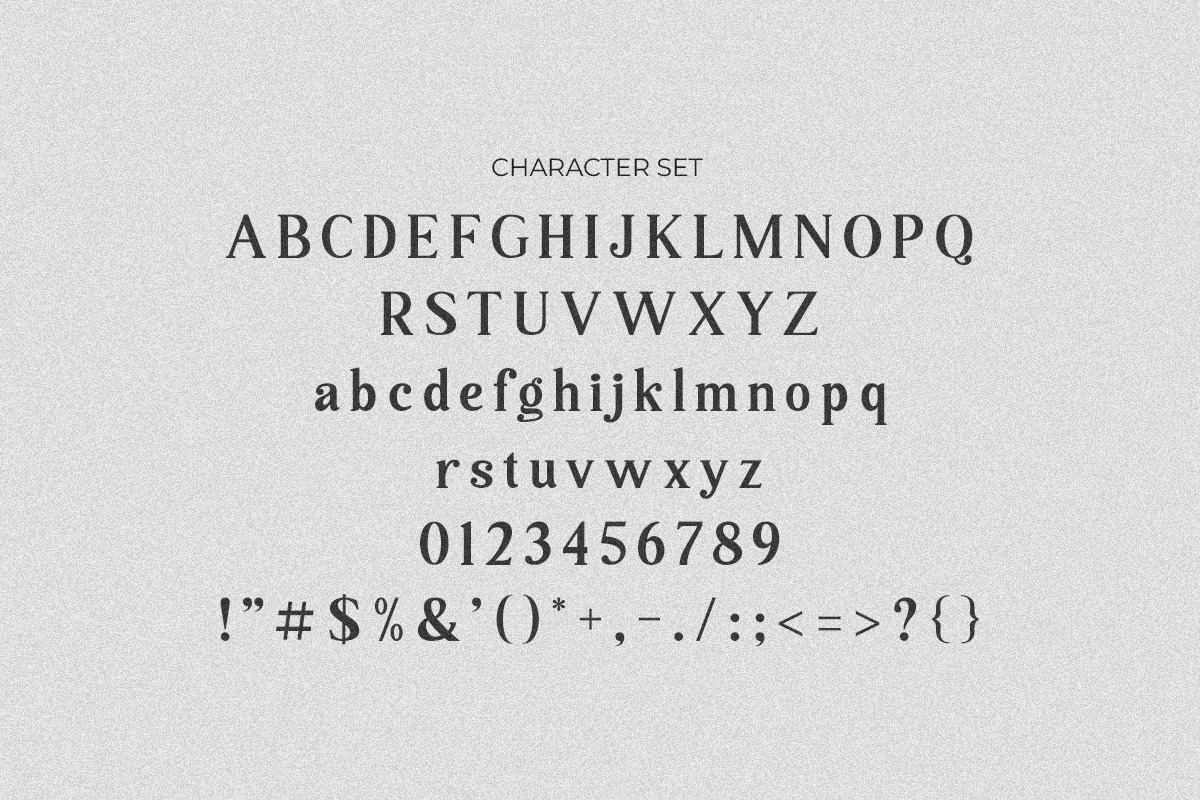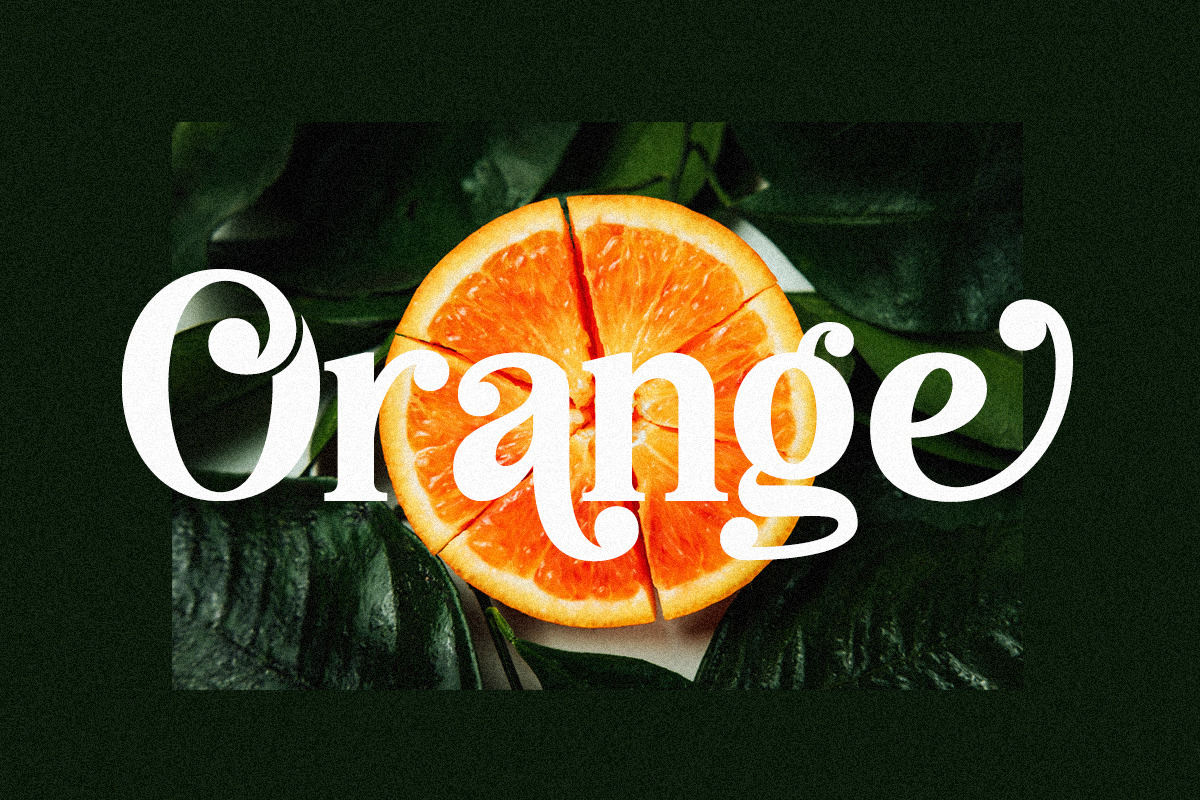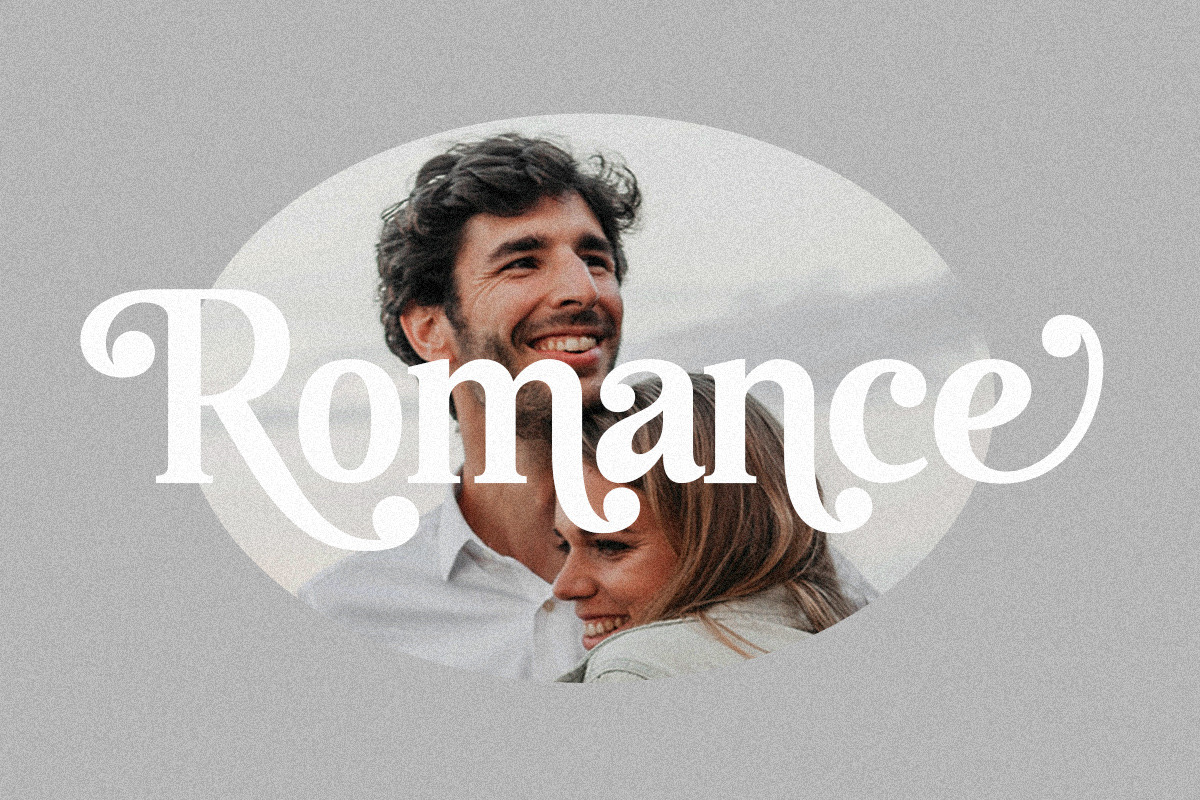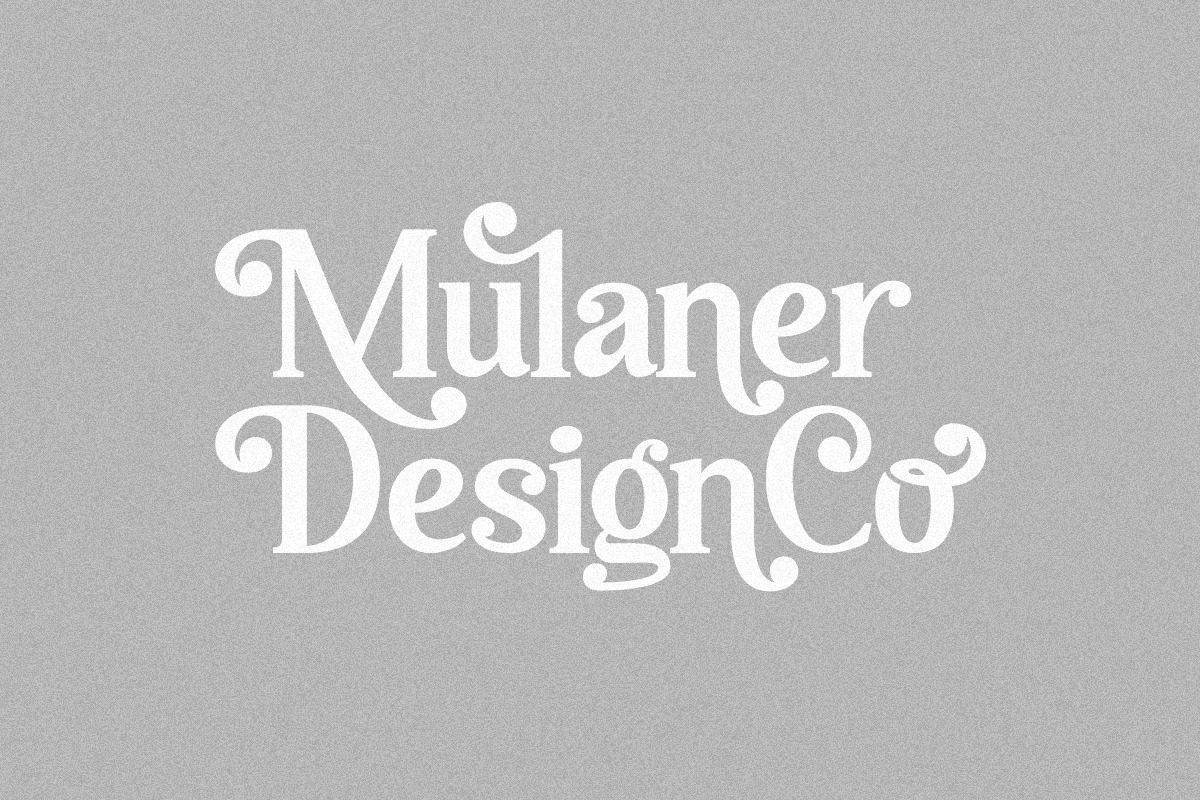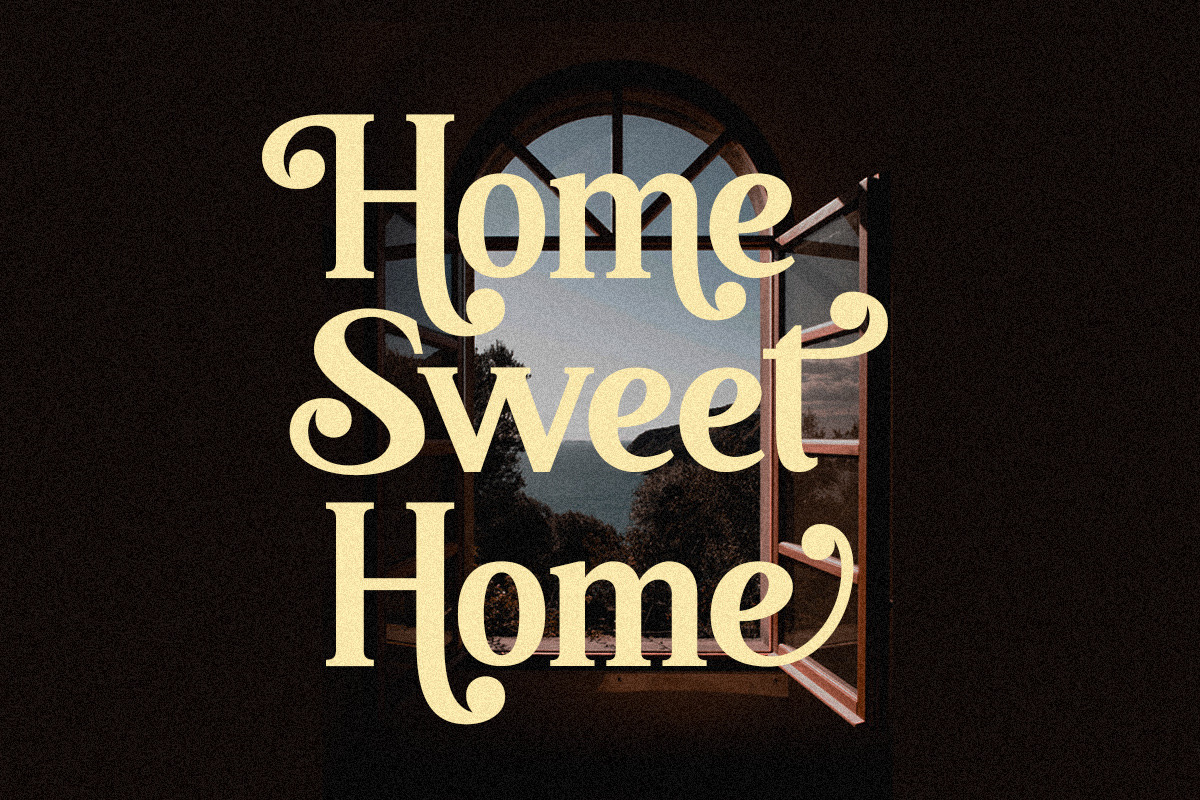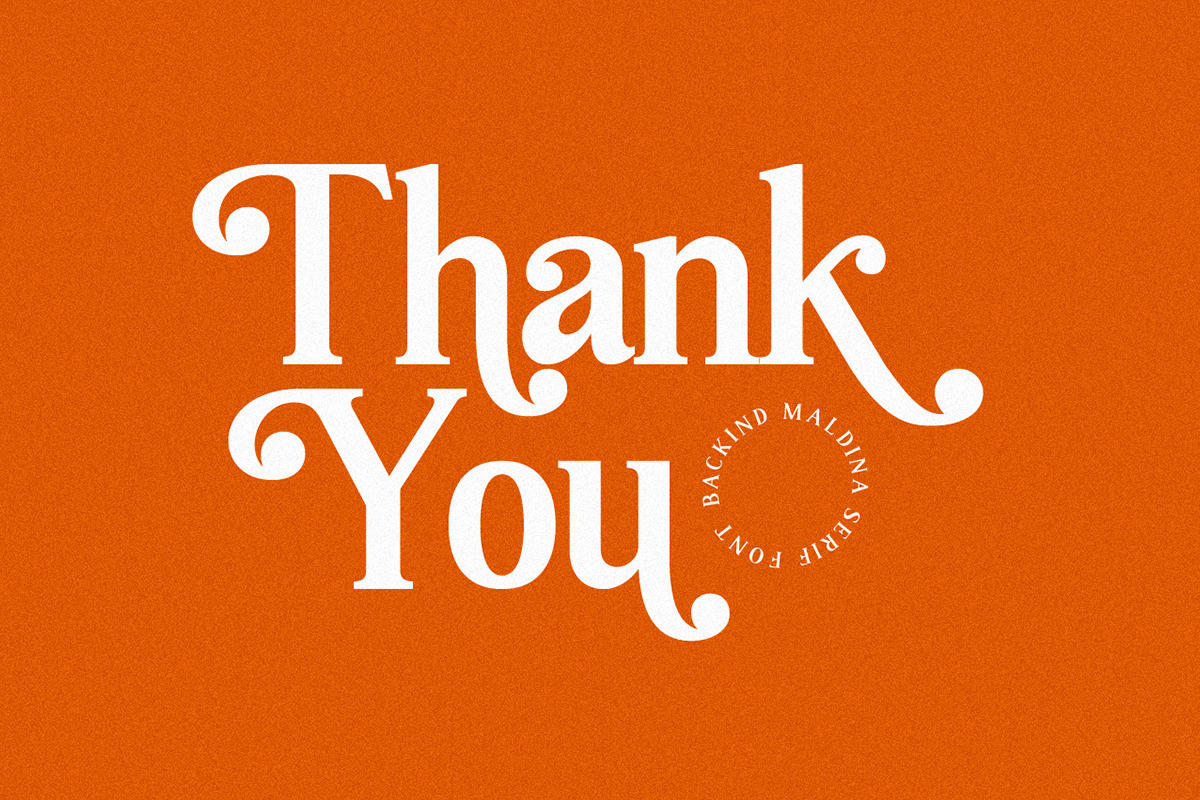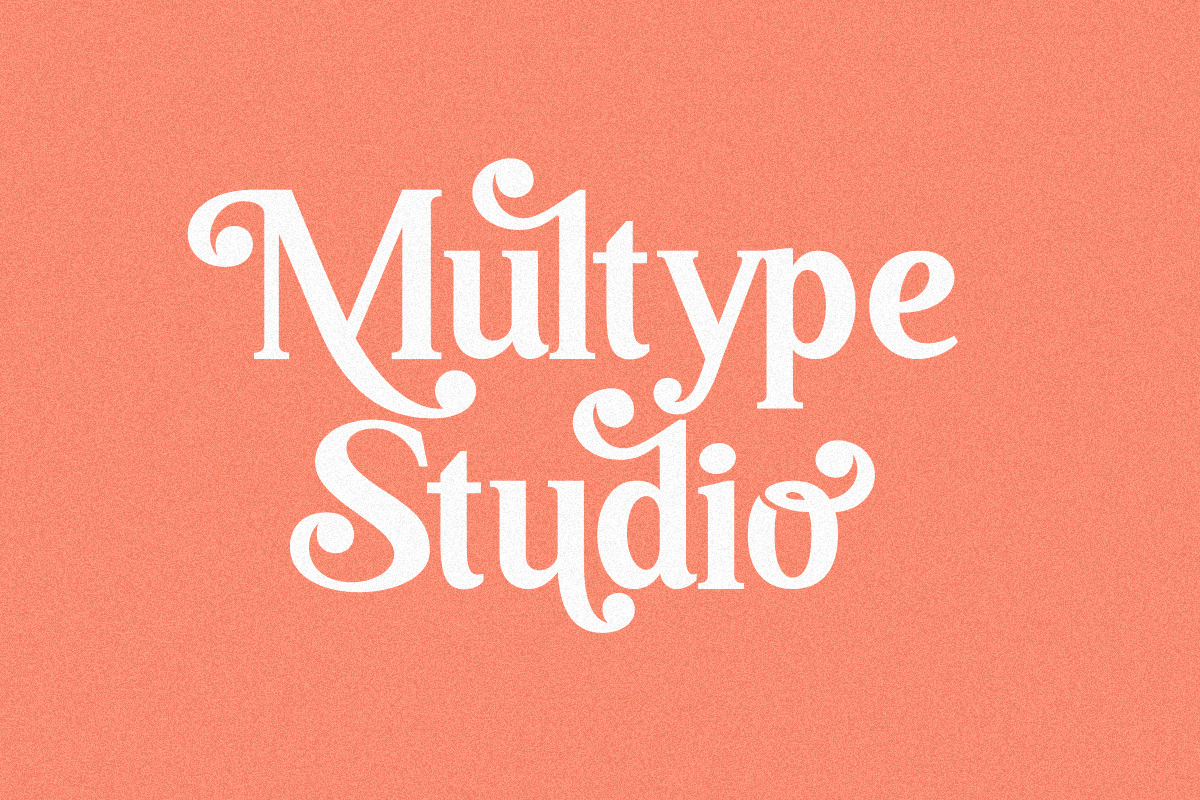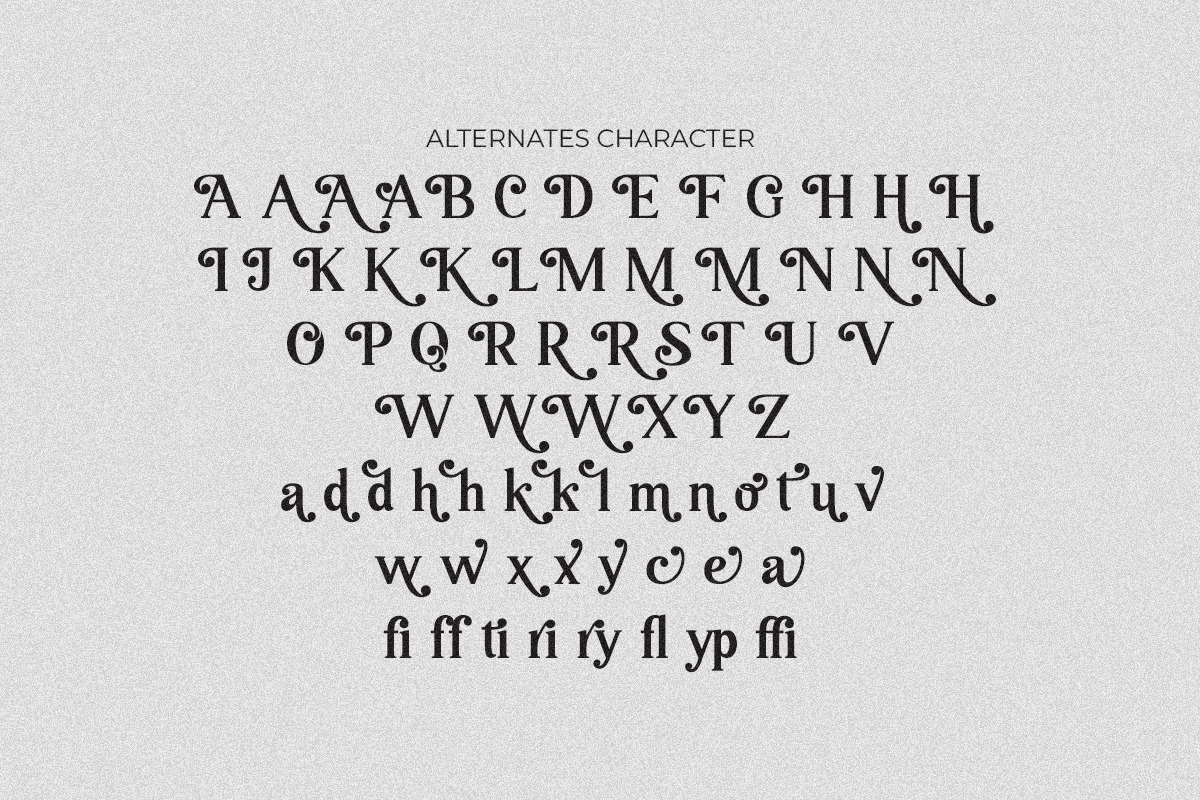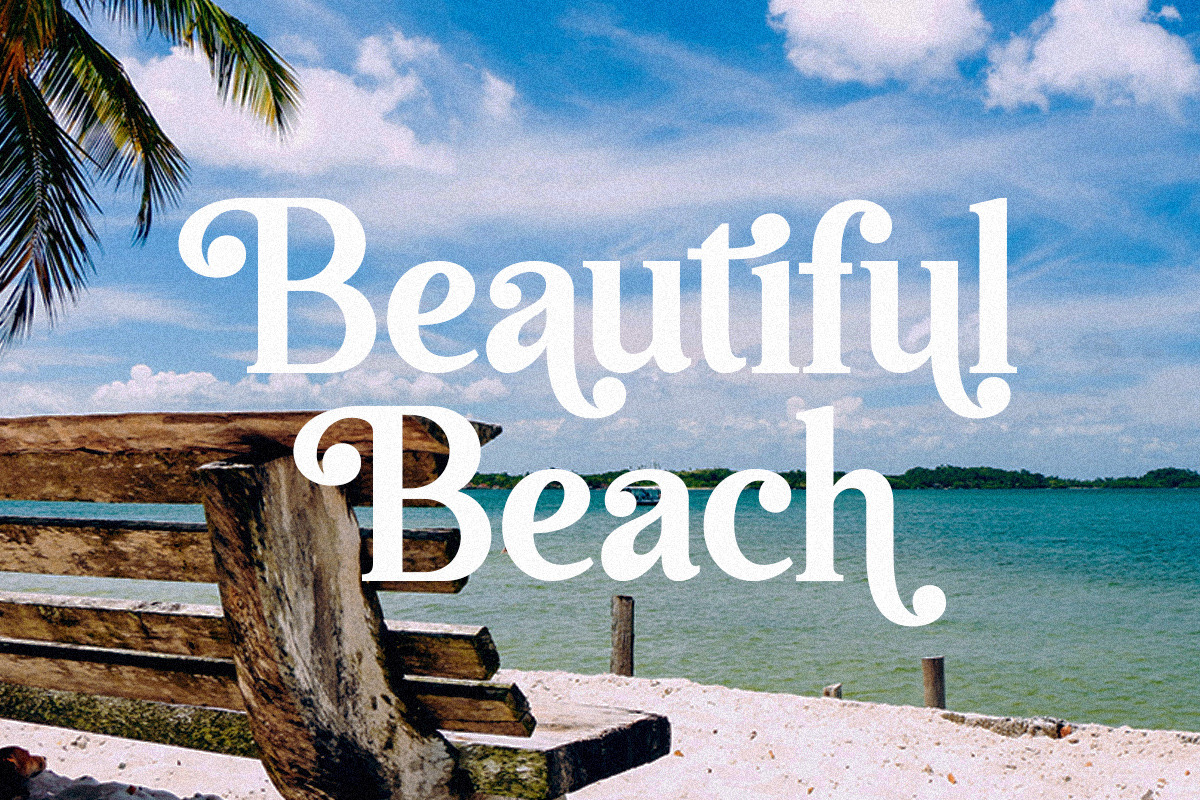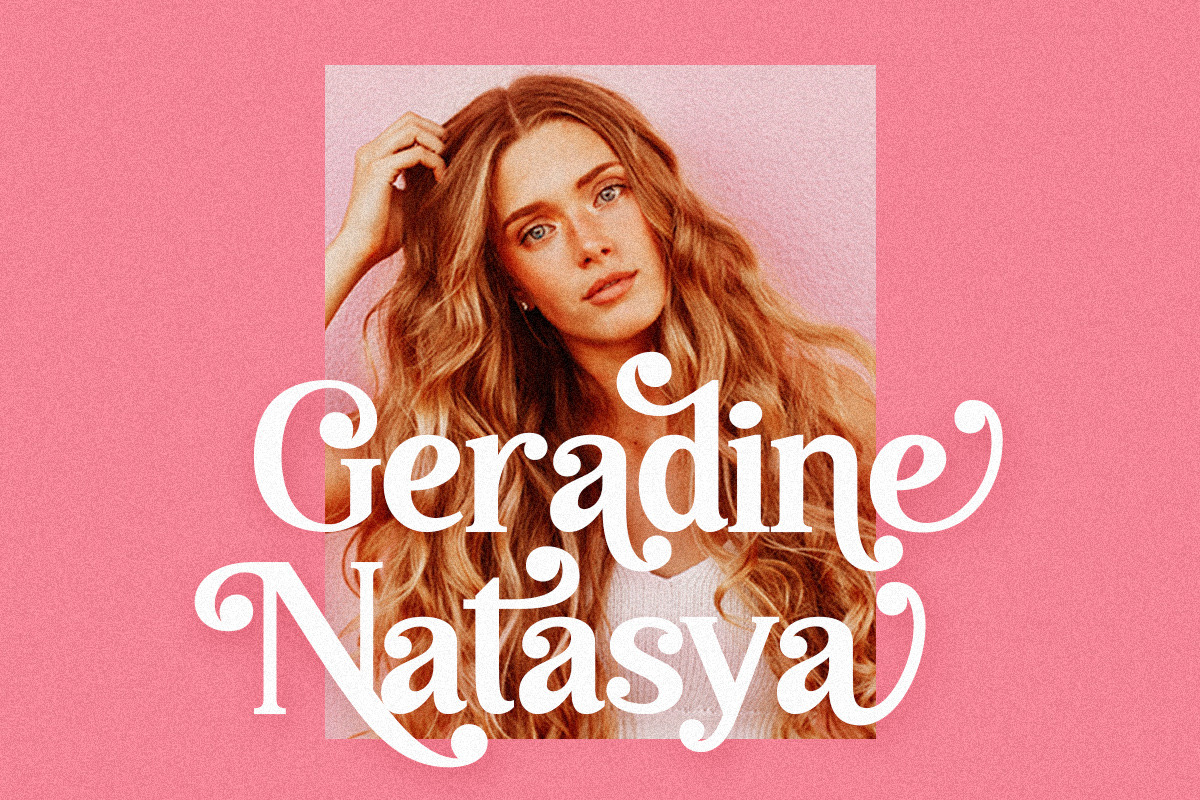
Backind Maldina Modern Font
Backind Maldina is a chic,classy, and modern bold serif font with many alternates character to access in OpenType features. This font is perfect for branding, logos, social media, advertisements, product packaging, watermark, invitation, stationery, tshirt, prints, posters and more
- Stylistic Alternate
- Numbers & Symbols